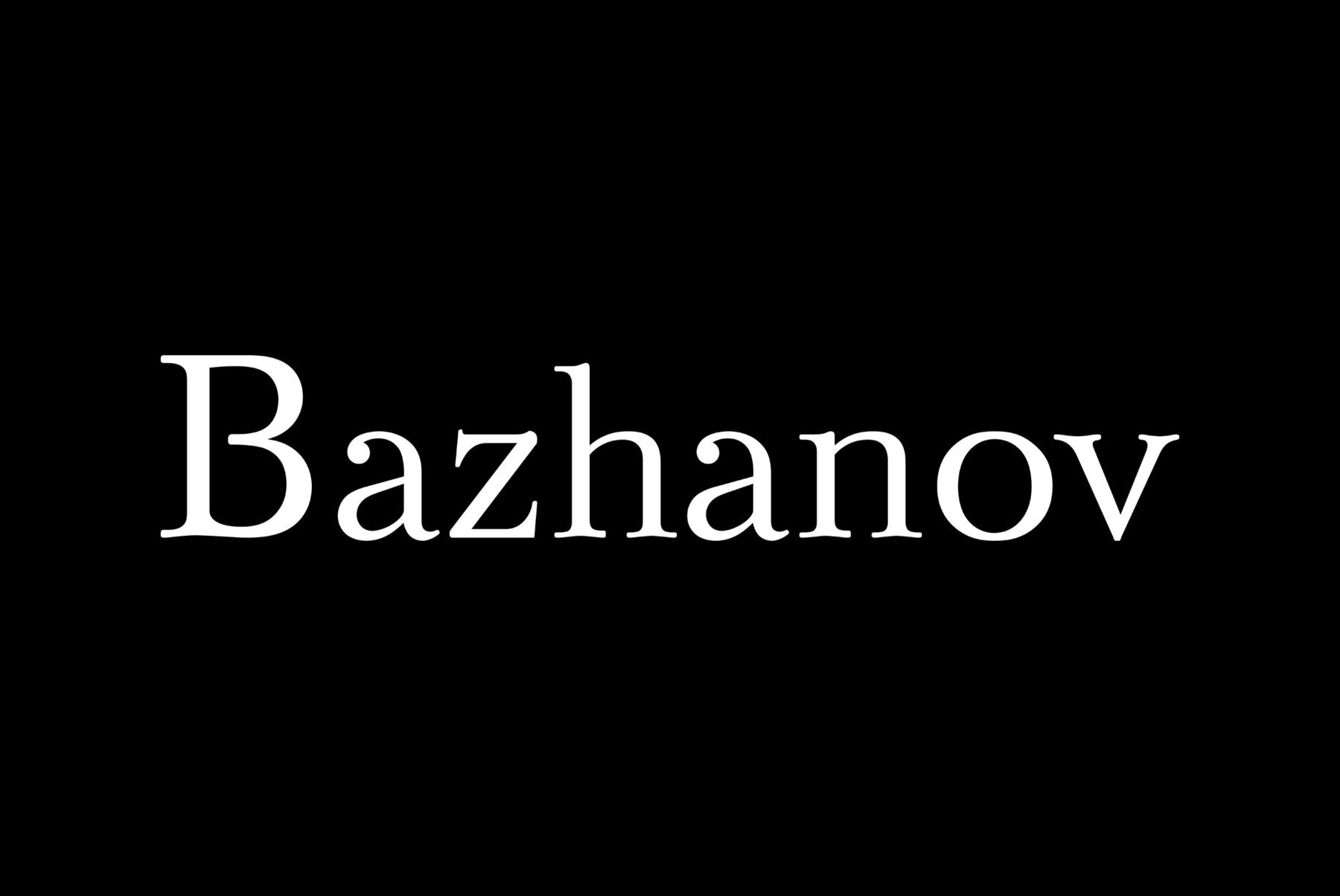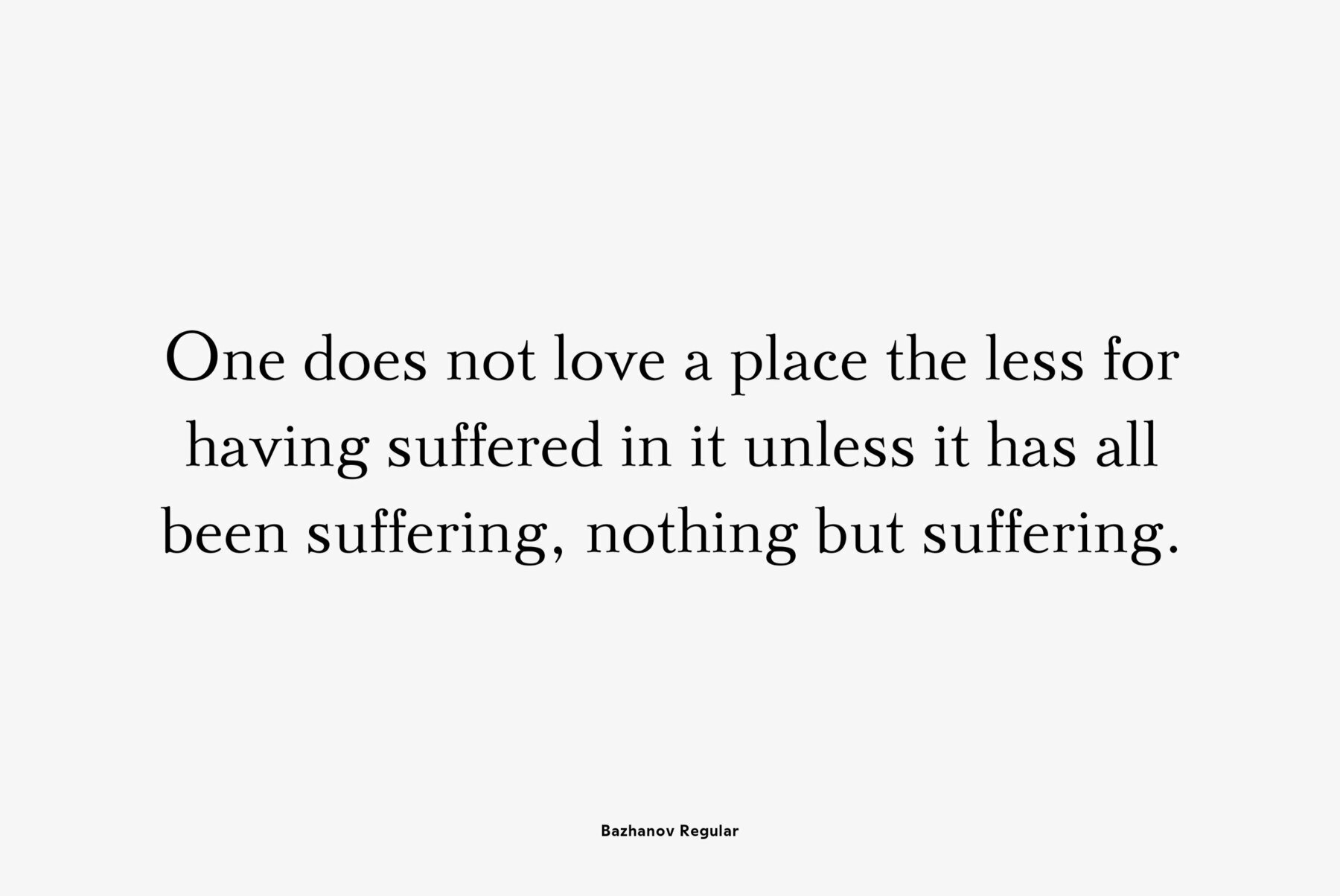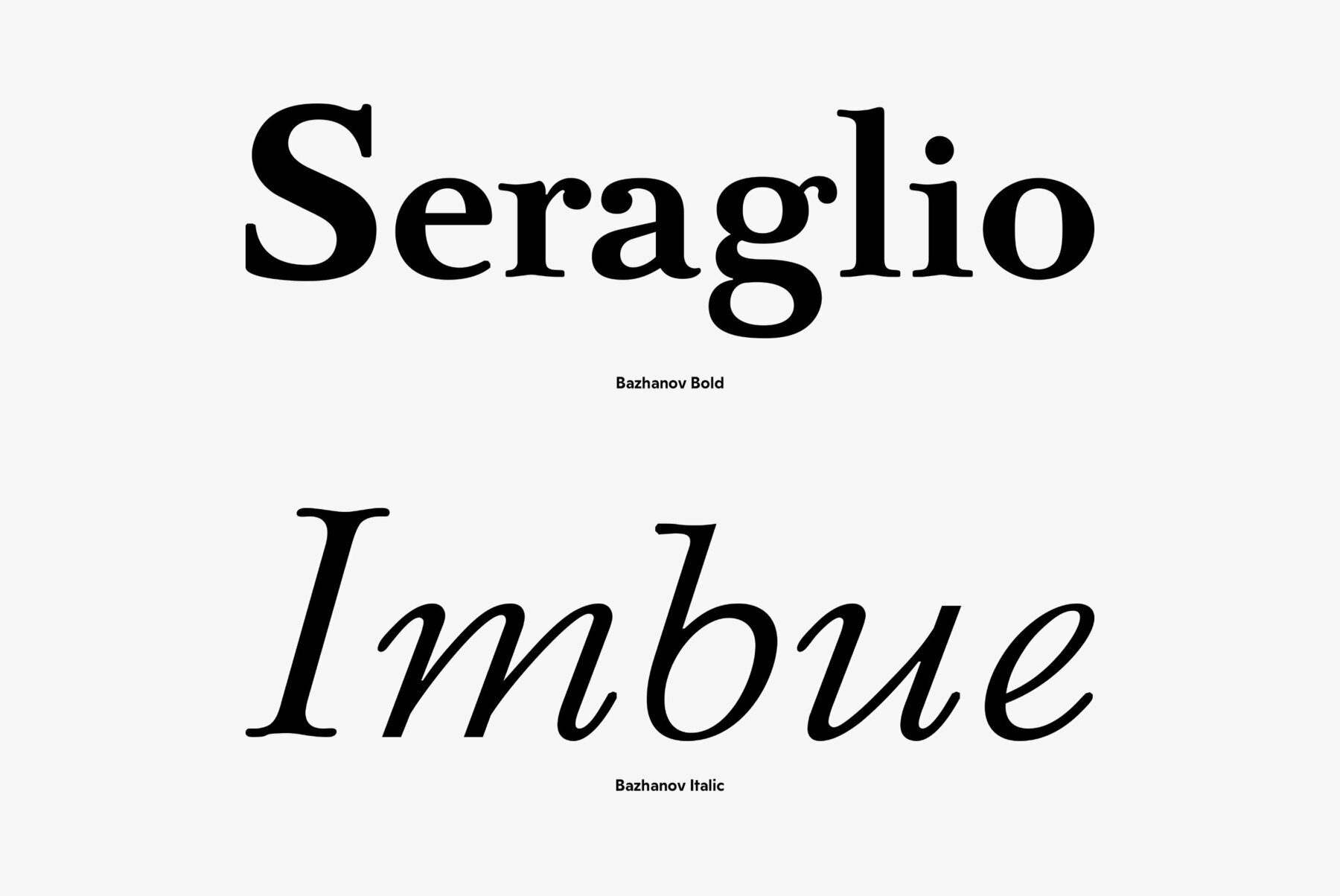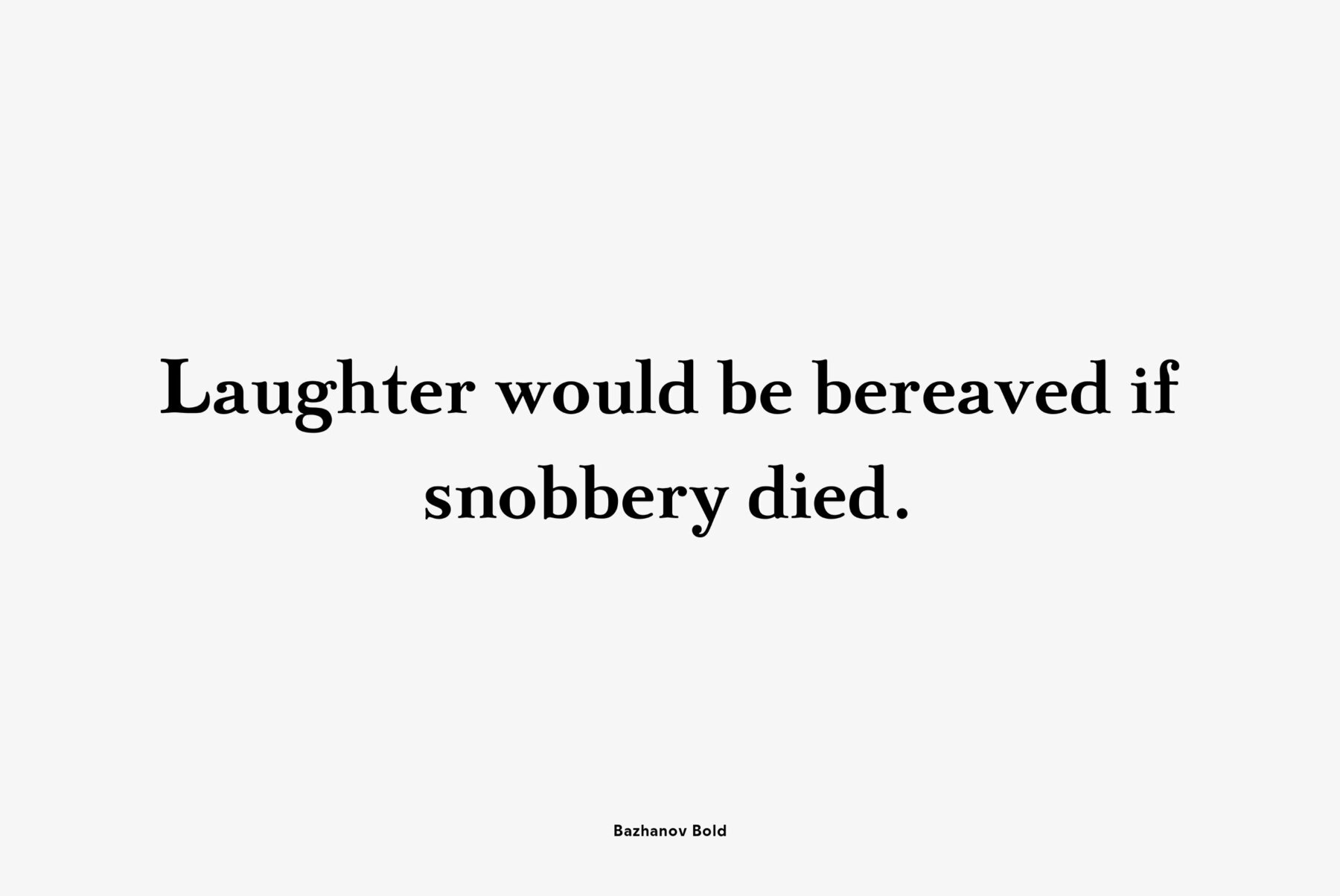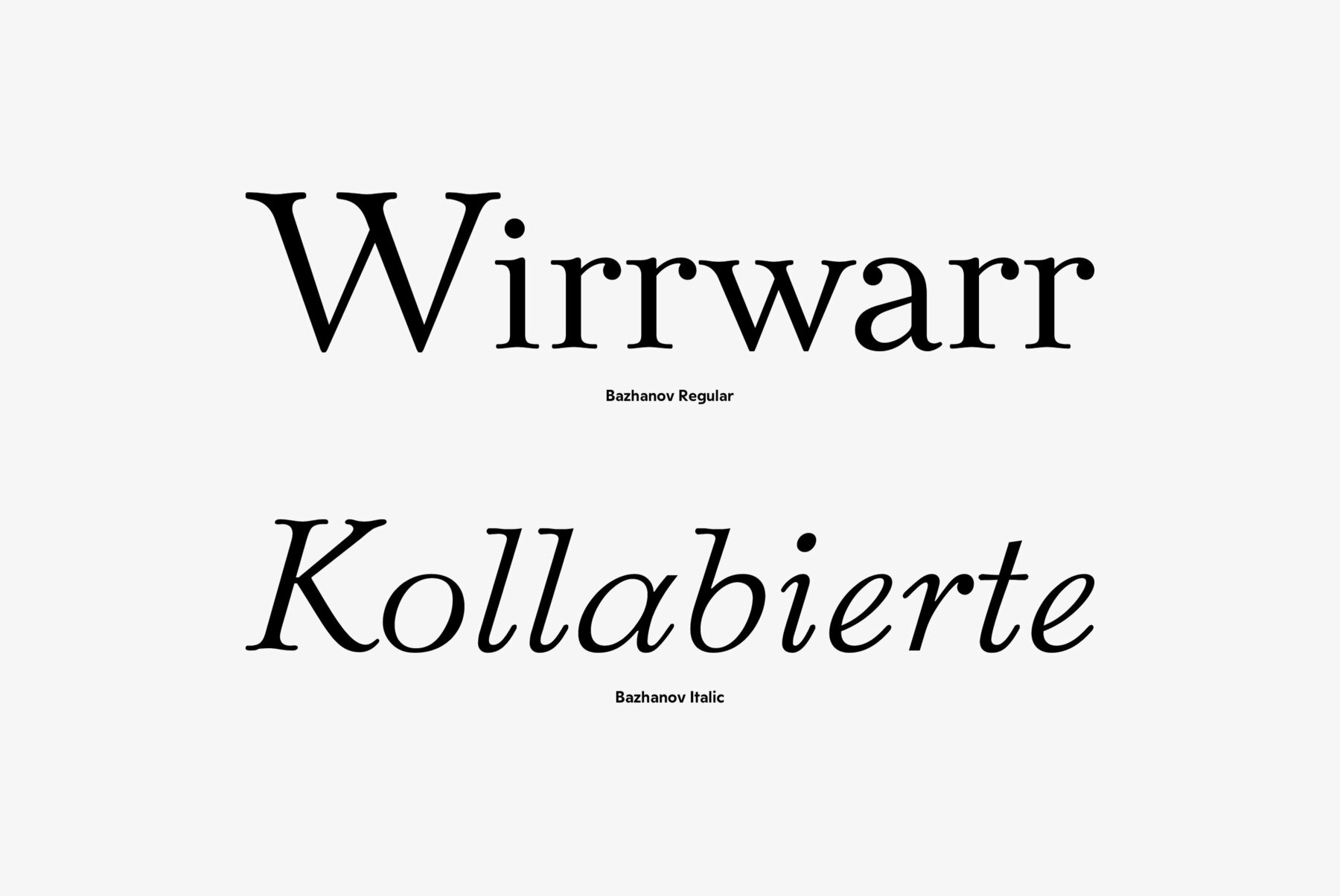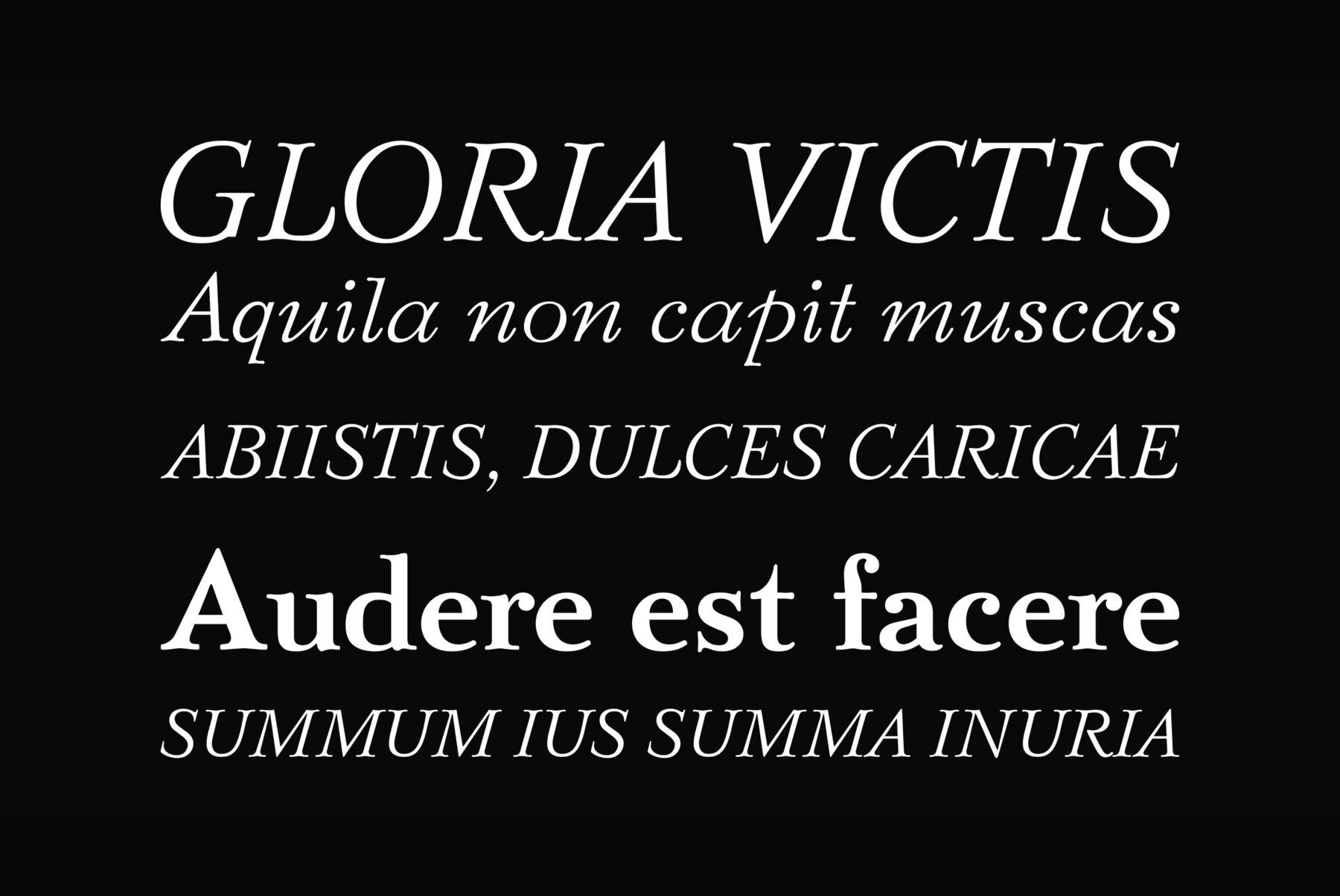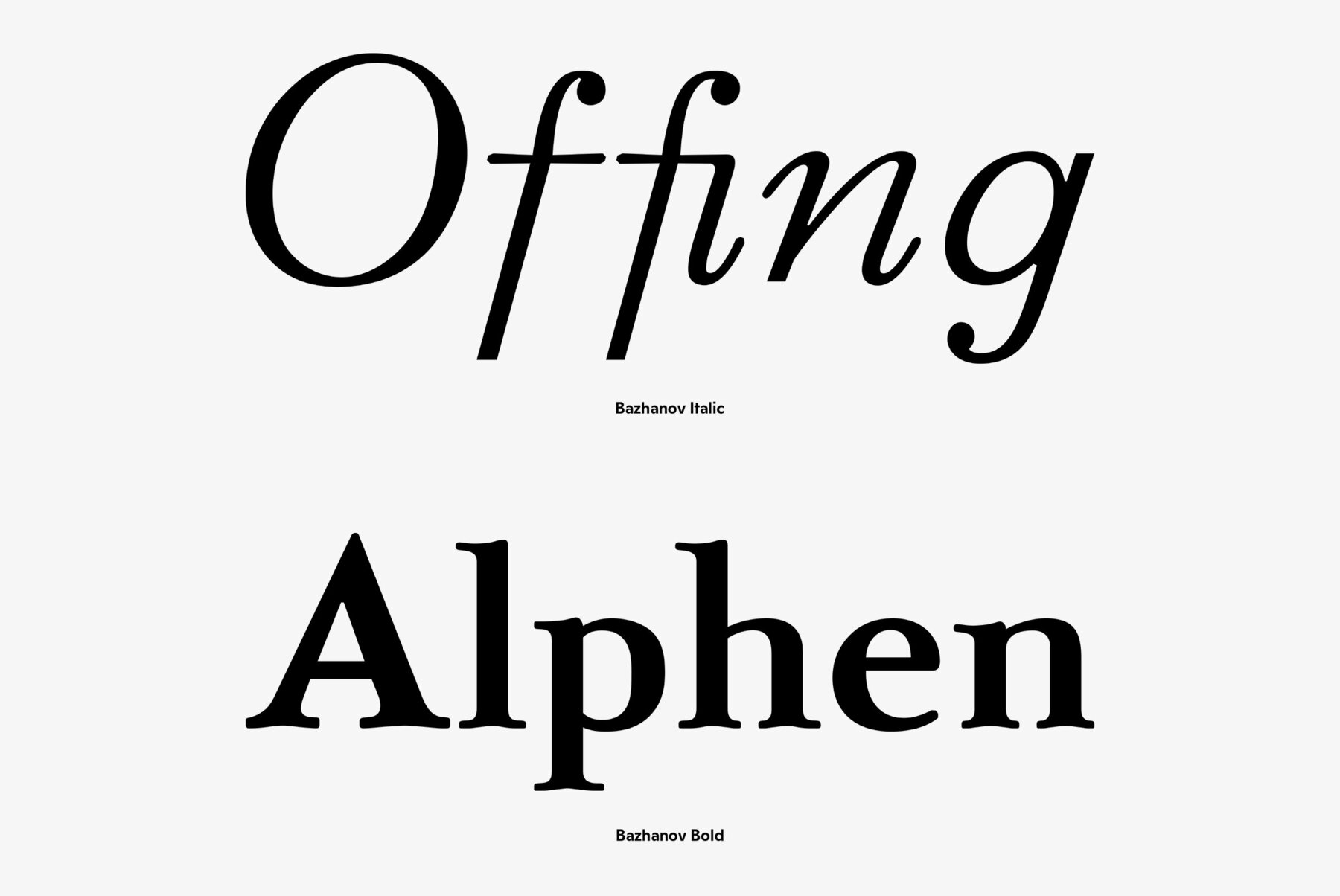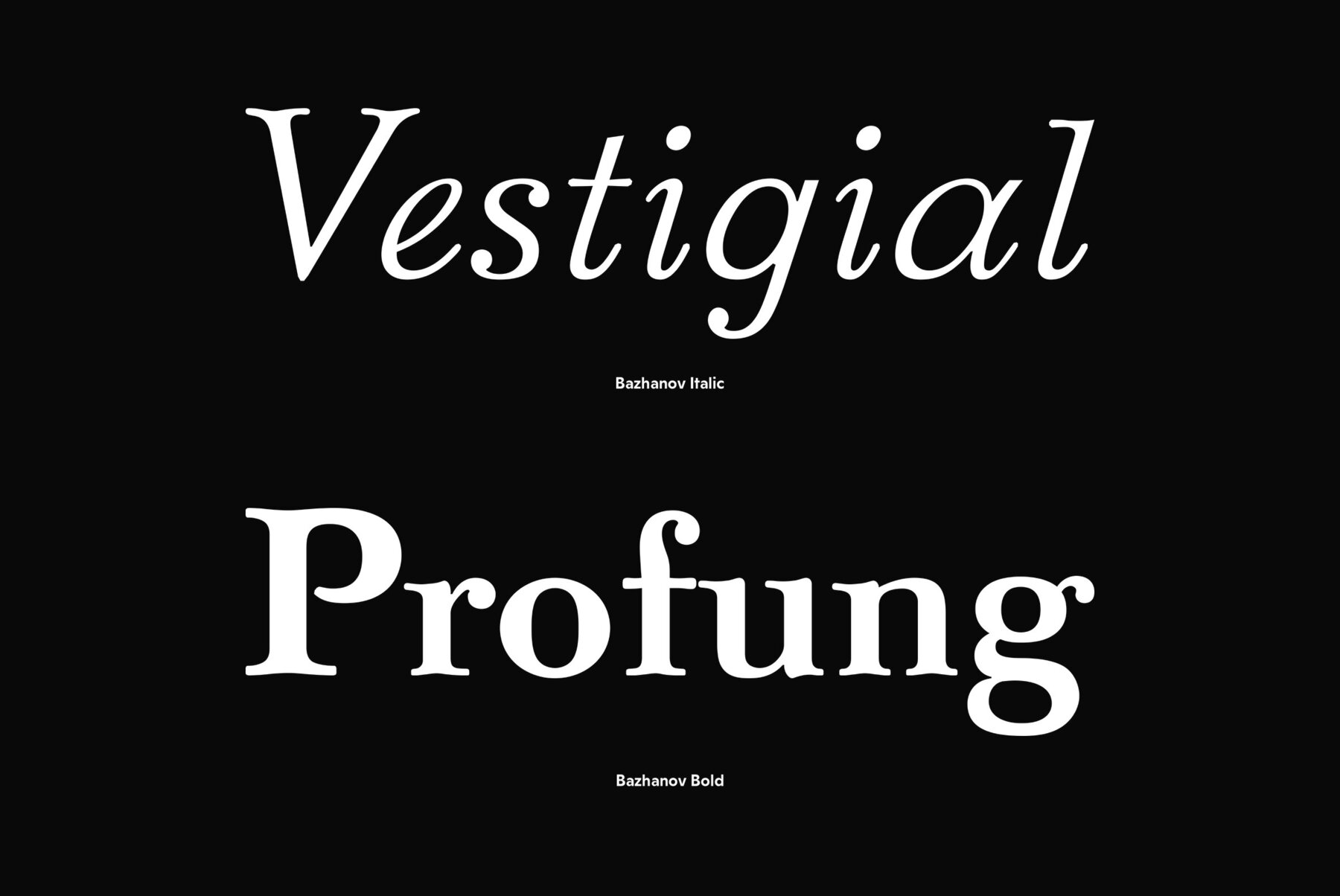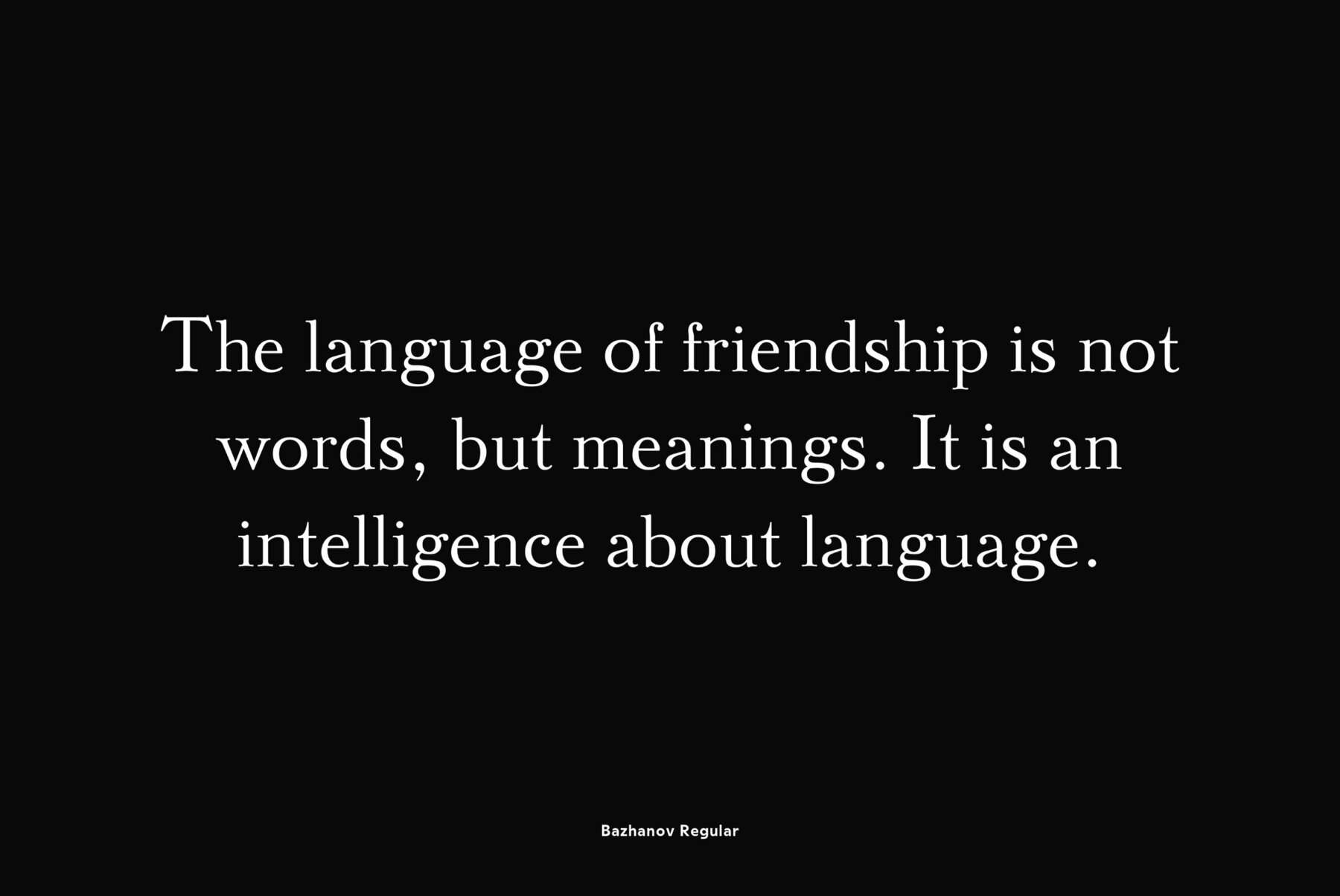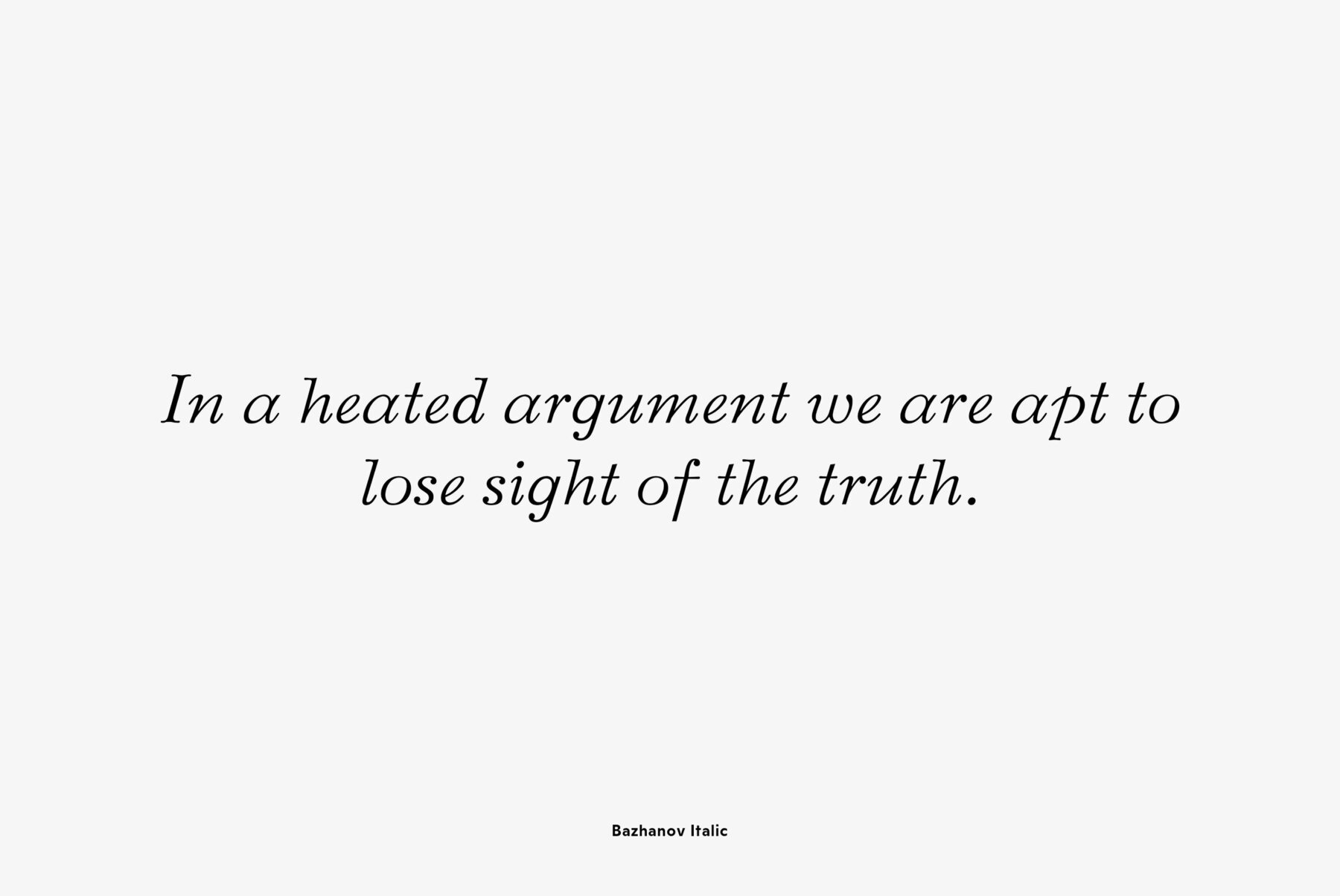
PT Bazhanov was designed at Polygraphmash type design bureau in 1961 by Michael Rovensky (1902-1996). Based on the lettering by Moscow book designer Dmitry Bazhanov (1902-1945).
PT Bazhanov was designed at Polygraphmash type design bureau in 1961 by Michael Rovensky (1902-1996). Based on the lettering by Moscow book designer Dmitry Bazhanov (1902-1945). Old-fashioned flavor of this design recreates the Soviet hand-lettering style of the 1940s. For use in title and display typography. The digital version was developed for ParaType in 2001 by Lyubov Kuznetsova.